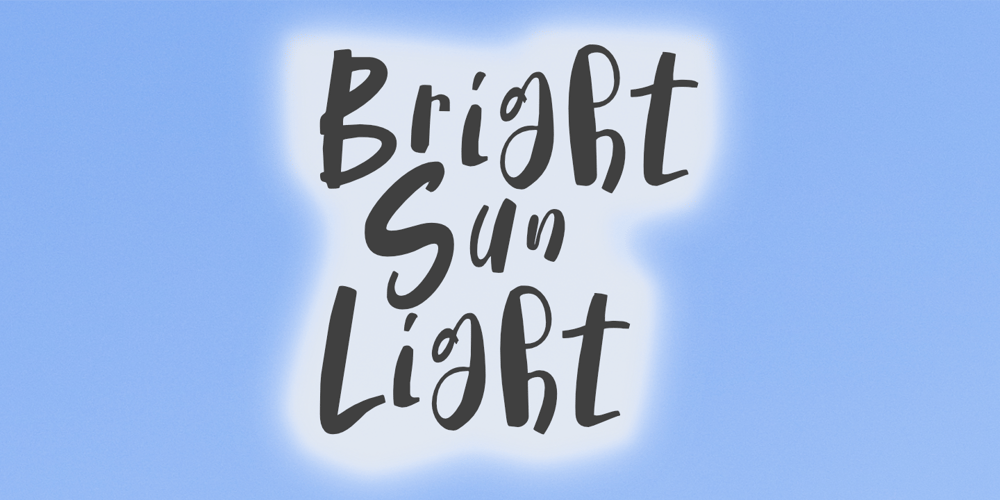
Bright Sun Light Font Family was designed by Aldy Sidik and published by Epiclinez. Bright Sun Light contains 1 styles and family package options. Introducing Bright Sun Light, a playful display font from Epiclinez! With its unique character and happy vibe, this font is sure to make your designs stand out. Whether you’re creating logos or product packaging, or want something fun for your headlines, look no further than Bright Sun Light. Its cute, bubbly, and laid-back style brings joy to everyone who sees it! Get ready for some sunny vibes with Bright Sun Light!Bright Sun Light font includes : Basic Latin Uppercase and Lowercase Under Swashes Numbers, symbols, and punctuations Multilingual Support. Simple Installations works on PC & Mac Thank You!